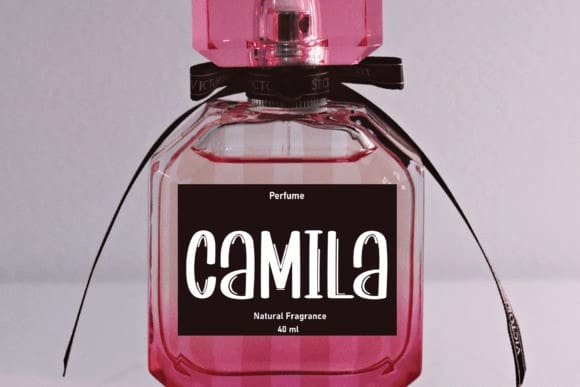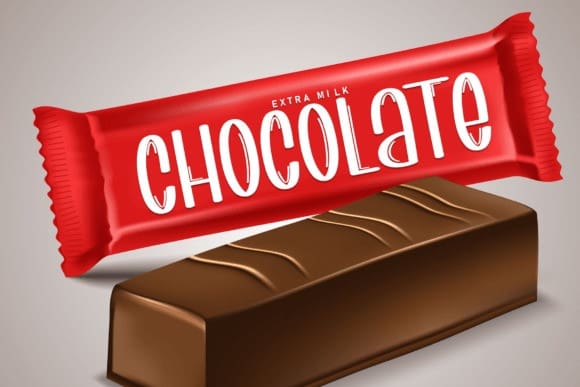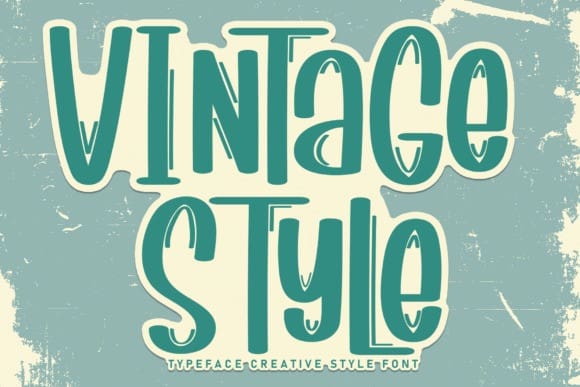
Vintage Style Font
Vintage Style Font, is a sweet and friendly handwritten font. Its natural and unique style makes it incredibly fitting to a large pool of designs. The only limit is your imagination!